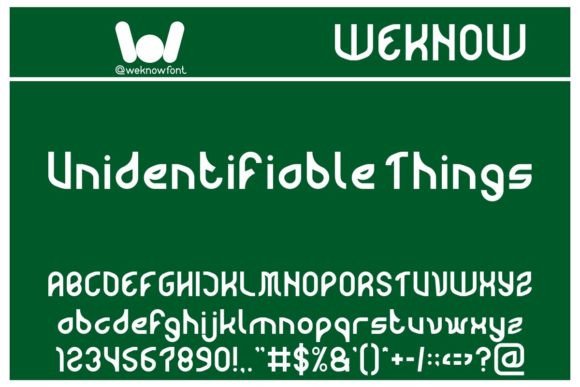
Step into a realm where imagination meets design, where letters dance in a choreography of creativity - Alien Font. A display type like no other, Alien Font will transport you to a realm of possibilities, where your words become art and your messages transcend.
With its bold, yet fluid lines, Alien Font captures the essence of technological prowess and futuristic flair. Each letter is meticulously crafted to evoke emotions and draw the eye, whether you're composing a captivating logo for your groundbreaking business or weaving a tale in your captivating novel.
Dive into the depths of your imagination and let Alien Font guide you through a journey of self-expression, where your thoughts and words take shape with unwavering style. Unleash the author within and craft narratives that dance upon the pages, leaving readers spellbound and eager to discover the mysteries that unfold.
With Alien Font as your companion, you'll discover:
* A universe of creativity, where imagination and ingenuity collide.
* Limitless possibilities, where your words dance and take on a life of their own.
* An audience captivated by your message, drawn in by the magnetic allure of Alien Font.
* A world where your ideas are launched into the stratosphere, leaving an indelible mark on the hearts and minds of all who encounter them.
Alien Font beckons you to embrace the future, where the boundaries of language and design blur, and where your creative voice soars to unprecedented heights.